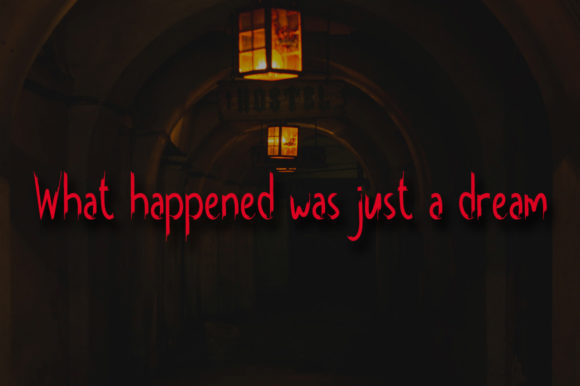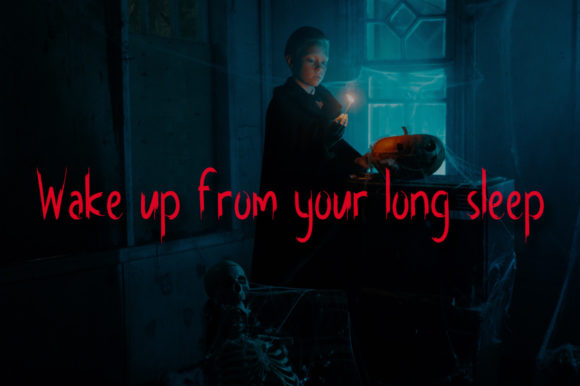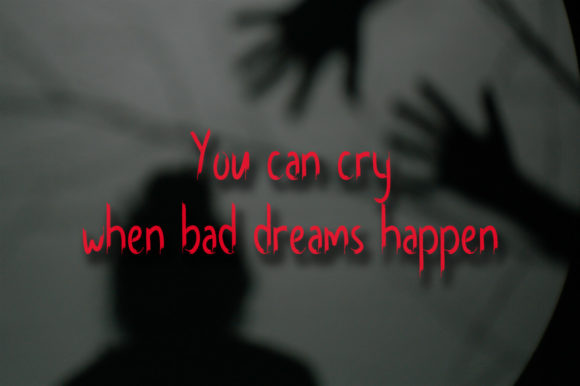
Introduction to Scary Dreams Font Font
Fonts play a crucial role in design, and the Scary Dreams Font font is a typeface that brings both character and versatility to any project. Whether you’re working on a branding project, a website, or a print design, the Scary Dreams Font font offers a unique style that can elevate your work.
Scary Dreams is a cool and horror looking display font.
No matter the topic, this font will be an incredible asset to your fontsβ library, as it has the potential to elevate any creation .
Key Features of Scary Dreams Font Font
Why Choose Scary Dreams Font Font?
The Scary Dreams Font font is more than just a typeface β it’s a design tool that helps you communicate your message with style and clarity. Its unique character set and versatile design make it suitable for a wide range of applications, from elegant invitations to bold headlines.
With its carefully crafted letterforms and balanced proportions, the Scary Dreams Font font ensures readability and visual appeal across all mediums.
What makes Scary Dreams Font font special?
The Scary Dreams Font font stands out with its unique design, exceptional readability, and versatility across various design applications.